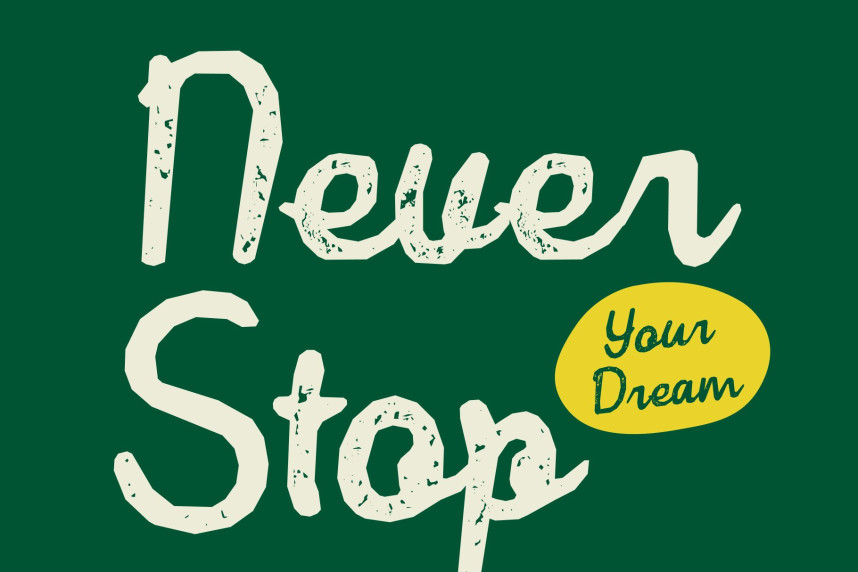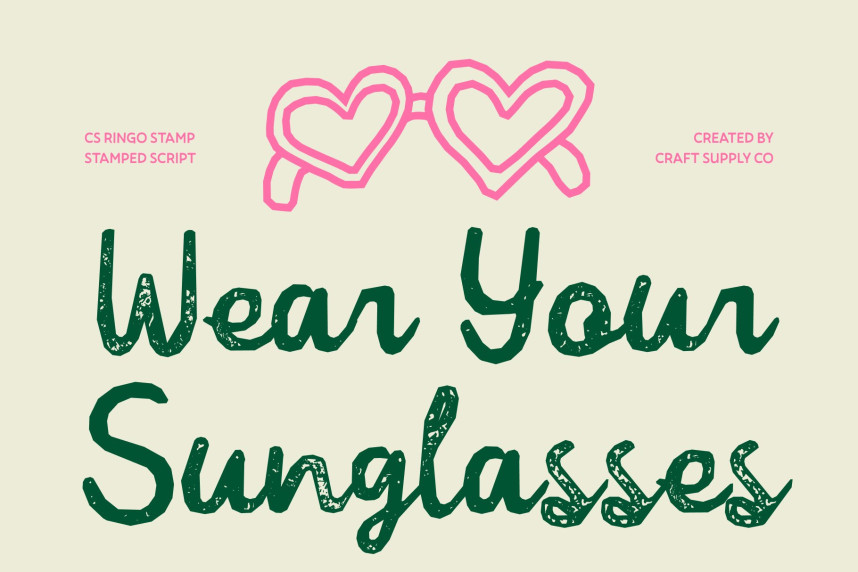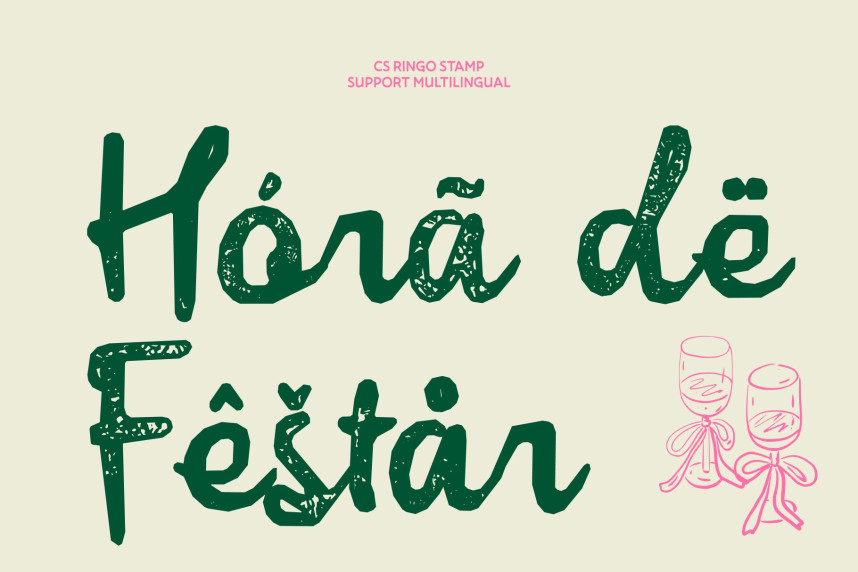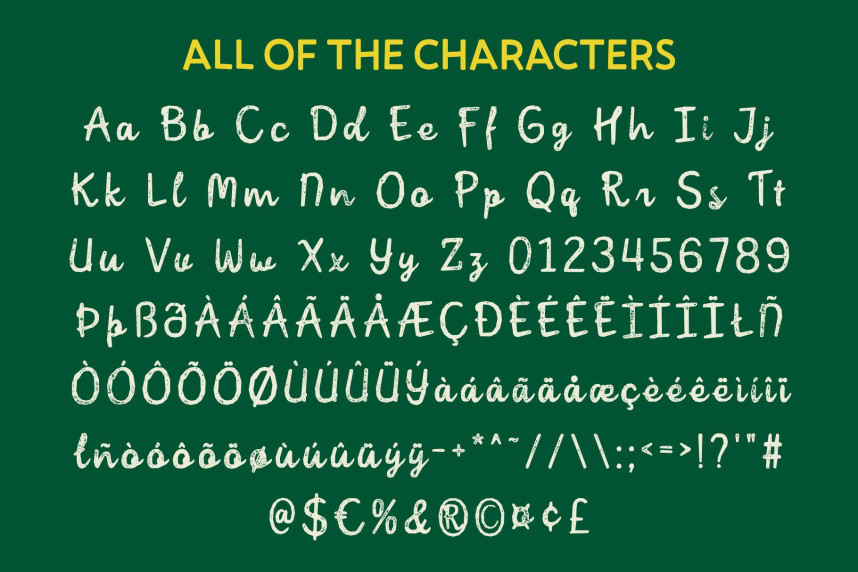
CS Ringo Stamp Font
CS Ringo Stamp Font – Handwritten Script Font: Where Feminine Elegance Meets Vintage Stamp Texture
Graceful Letterforms with Feminine Charm
This is a handwritten script font crafted with elegance and feminine charm. Its flowing strokes and naturally connected letterforms create a soft, graceful appearance that feels personal, refined, and effortlessly stylish. Designed to capture the beauty of authentic handwriting, it brings warmth and sophistication to every composition.